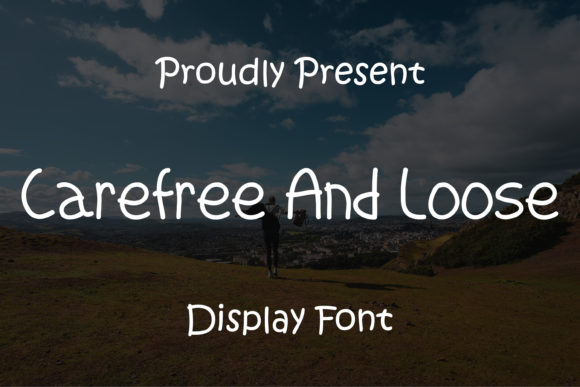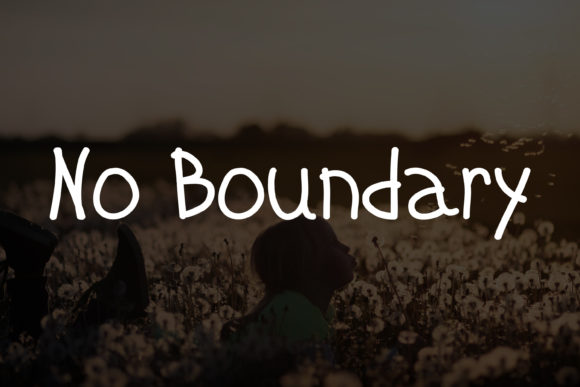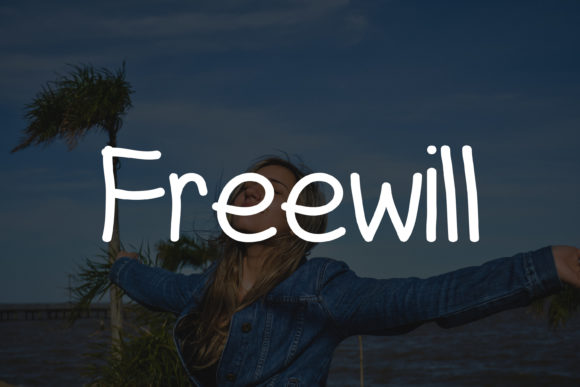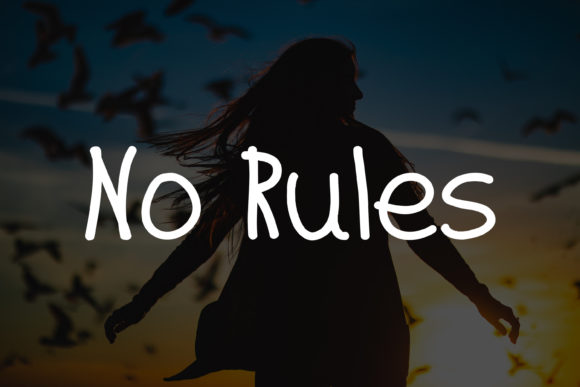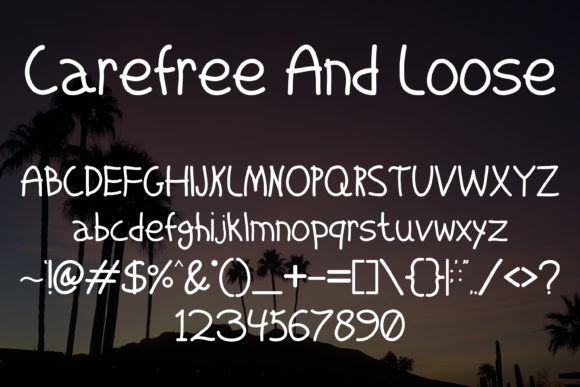
Carefree and Loose Font
Carefree and Loose is an incredibly natural handwritten font that’s fun and easy to read! It is perfectly suitable for watermarks, name tags, labels, titles, marketing materials, or any other projects that require a handwritten touch in an elegant, sleek style!